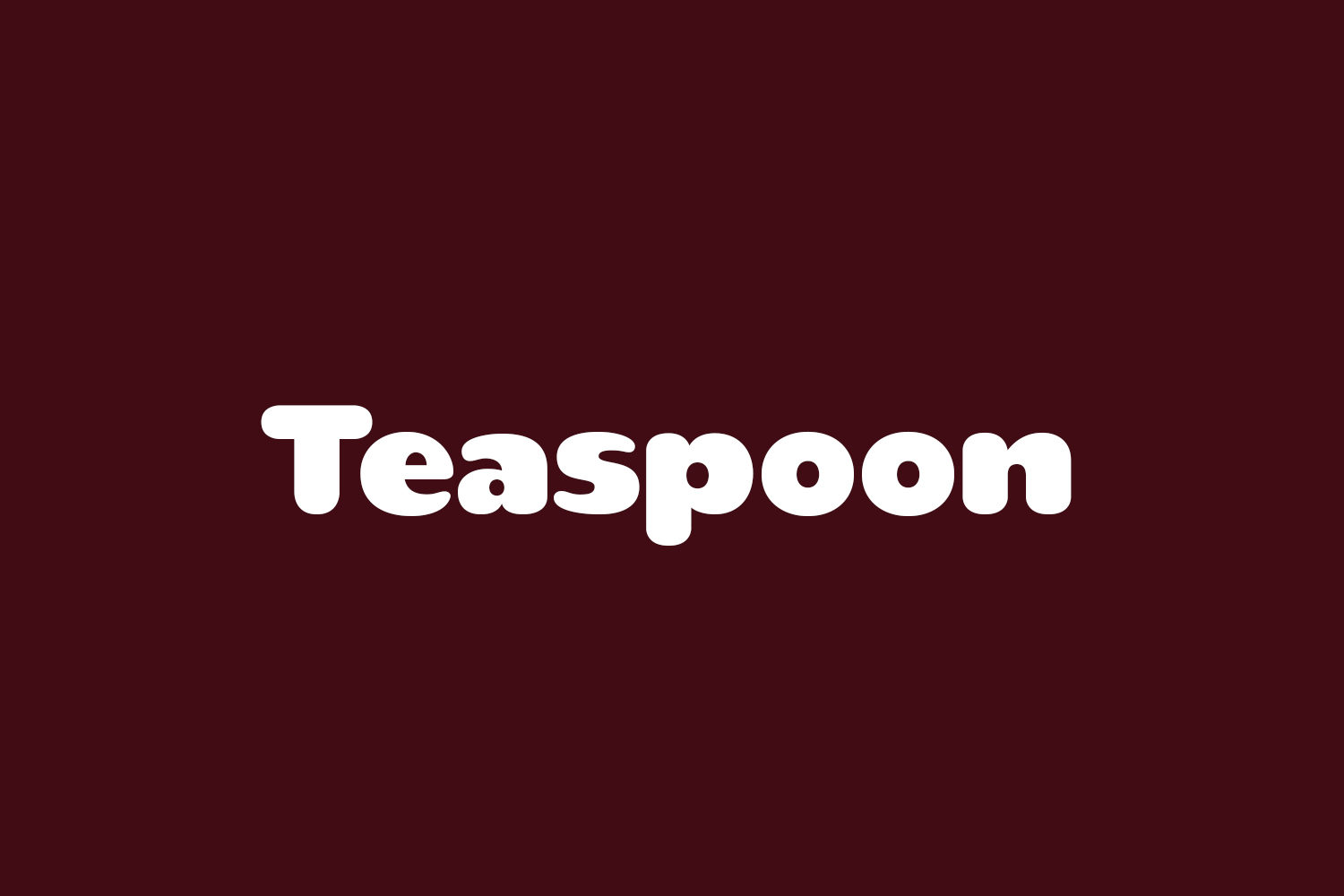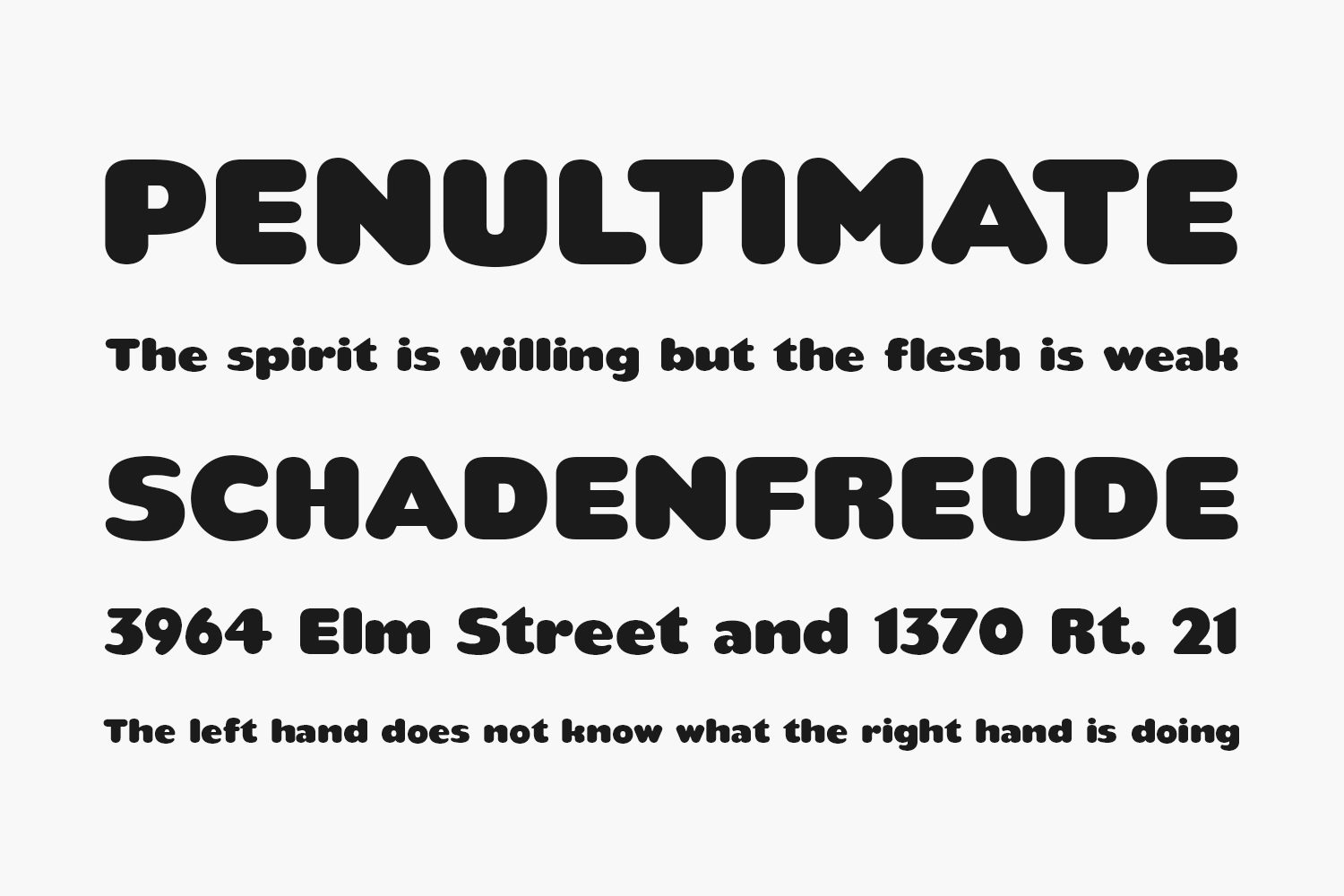
Teaspoon Free Font came out of a custom type piece I did for a Toronto based ad agency. Futura Extra Bold was everywhere at that time and I was extremely sick of looking at it, so did my own cute version. I actually got accused of plagiarising the lowercase i in this font which I thought was pretty funny.